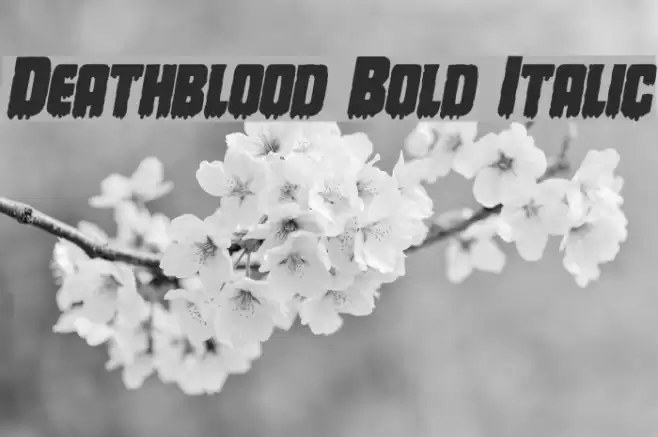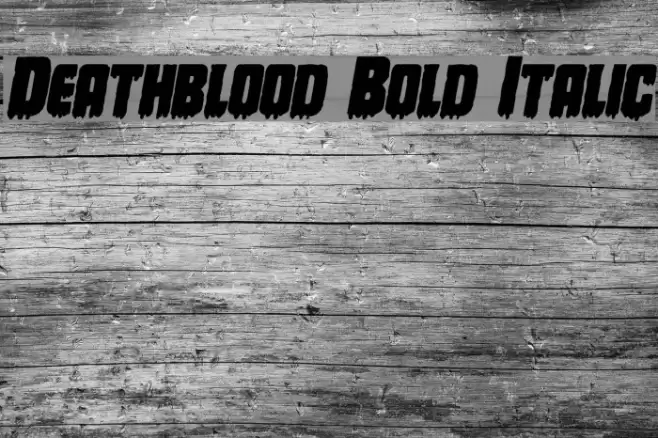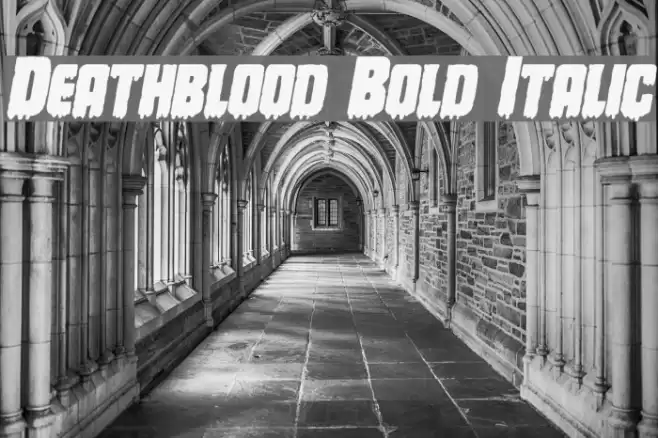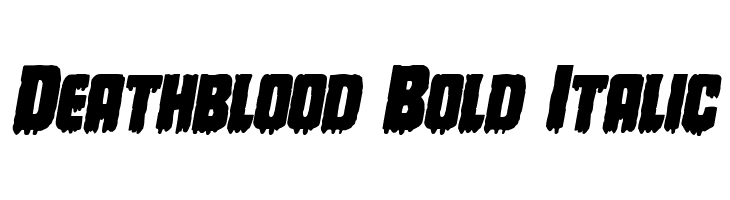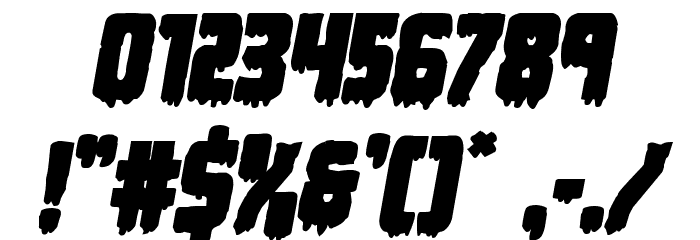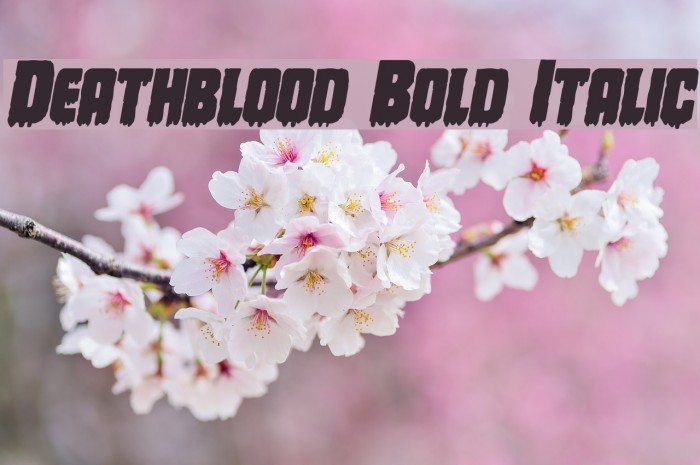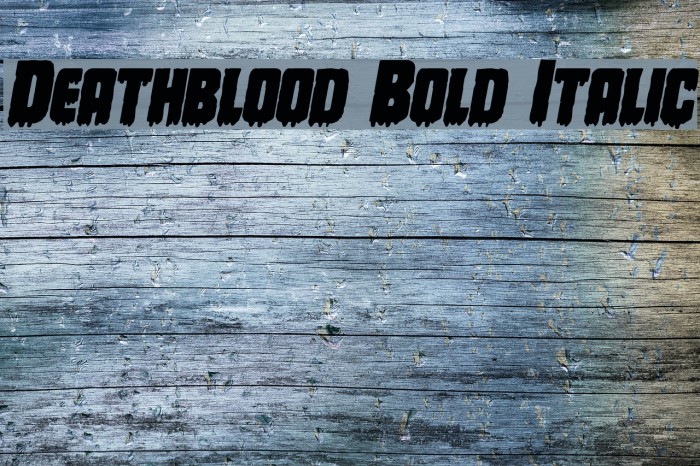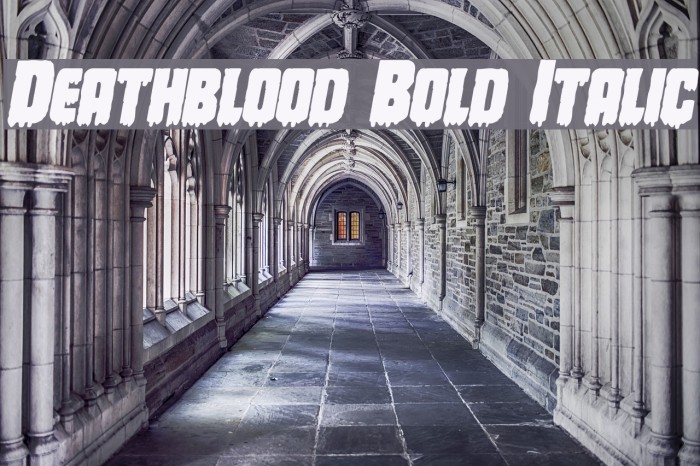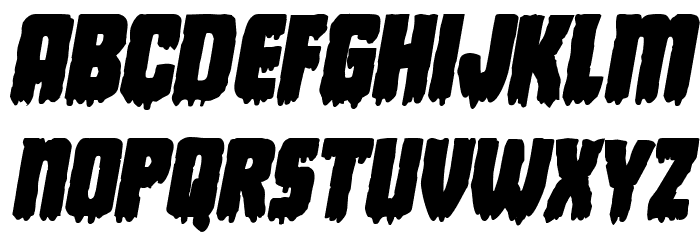
Deathblood Bold Italic Font
Deathblood Bold Italic Description
This font features a bold and italicized style with a distinct, edgy appearance. The characters have a rugged, almost jagged edge that gives them a dynamic and aggressive look. The strokes are thick and consistent, providing a strong visual impact. This font is designed to grab attention and convey a sense of intensity and power. The uppercase and lowercase letters maintain a uniform style, while the numbers and special characters complement the overall aesthetic. The font's unique style makes it suitable for projects that require a bold statement.
A bold, italicized font with rugged, jagged edges for a dynamic look from Uncategorized fonts.
- Proposed Projects: Ideal for horror-themed designs, video game titles, posters, and branding that requires a bold, intense look.